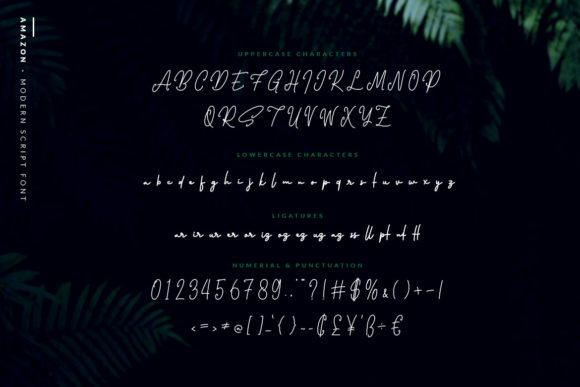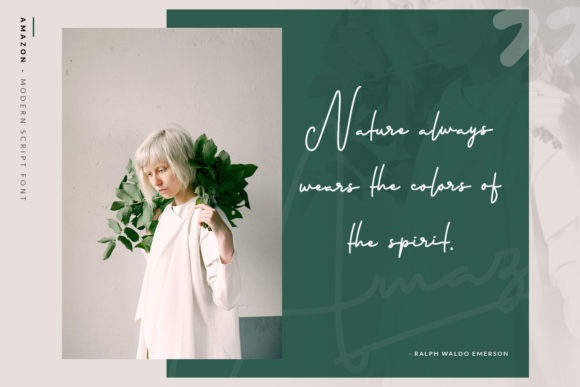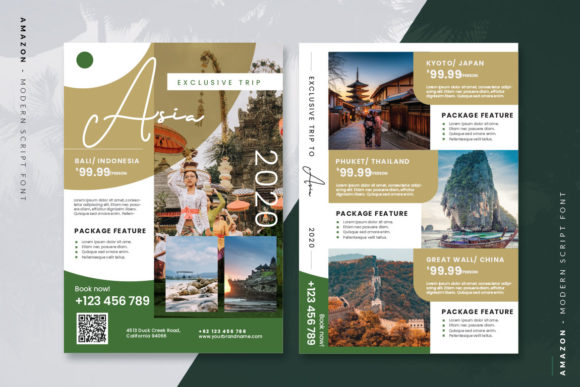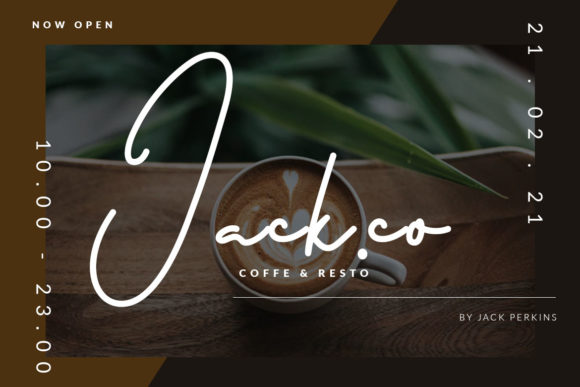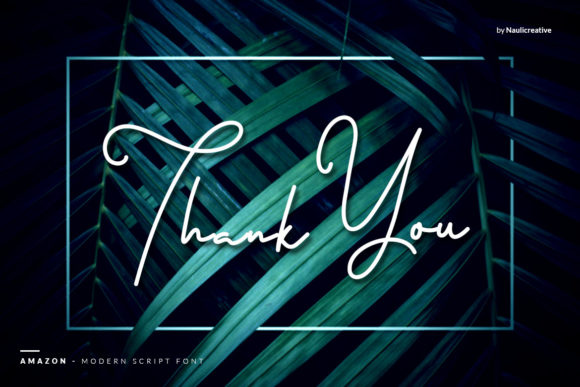
The Amazon Font: A Designer’s Dream Come True
I’ll never forget the moment I stumbled upon the Amazon font while working on a project for a client’s wedding invitation. I had tried countless fonts, but none seemed to capture the elegant and whimsical feel I was going for. That was until I saw Amazon – a beautiful, flowing handwritten font that instantly stole my heart. In this article, I’ll share my love for this stunning font, its features, and provide a comprehensive guide on how to use it in various design platforms.
An Honest Review of Amazon Font
What I Love About Amazon Font
• ✨ Elegant and timeless design that adds a touch of sophistication to any project
• 💫 Perfect for a variety of design projects, from wedding invitations to branding and packaging
• 🎨 Highly versatile and can be used for both digital and print designs
While Amazon font is a stunning addition to any design project, there are a few things to keep in mind:
• ⚠️ Some users may find the font a bit too ornate for certain projects, such as body text or captions
• 🤔 Limited availability of certain characters or glyphs, although PUA encoding makes it easy to access most
The Story Behind Amazon Font
Amazon font was designed with the intention of creating a beautiful, elegant script font that captures the essence of handwritten writing. The designer aimed to create a font that’s both timeless and versatile, perfect for a range of design projects. While the exact story behind the font’s creation may be unknown, its stunning design and features have won the hearts of many designers.
What is Amazon font? Amazon font is a beautiful, flowing handwritten font with an elegant touch, perfect for a range of design projects.